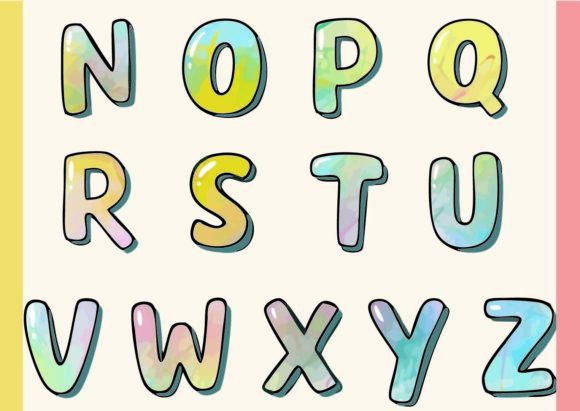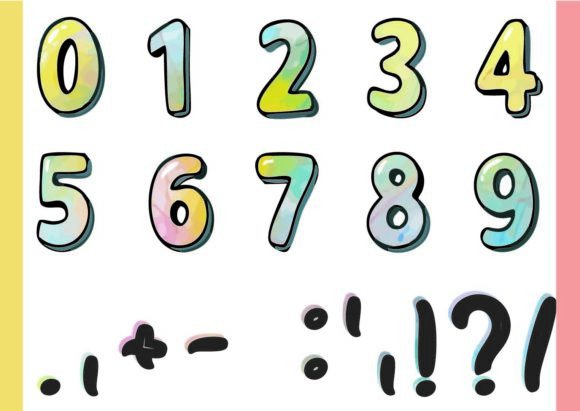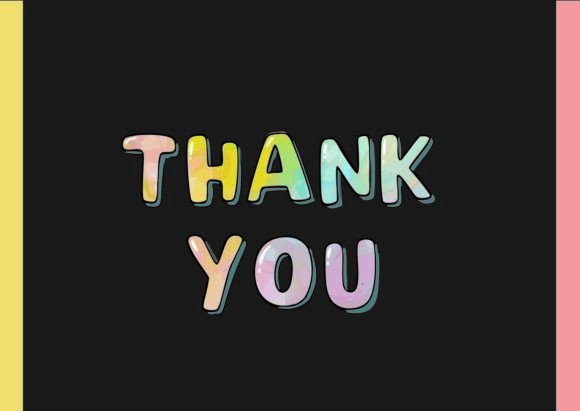
Discover the Vibrant World of Andrea Font: A Colorful Heaven for Designers and Crafters
Are you ready to add a pop of color to your designs? Look no further than Andrea Font, a revolutionary color font that is taking the design world by storm. This stunning font is not just a collection of letters and symbols, but a masterpiece of colorful art that will elevate your designs to new heights.
What is Andrea Font?
Andrea Font is a chromatic font, also known as a color font, that features a unique set of colors for every single glyph. This means that each letter, number, and symbol in the font has its own distinct color palette, creating a mesmerizing visual effect that is sure to capture attention. Whether you’re a designer, crafter, or simply someone who loves typography, Andrea Font is a must-have addition to your collection.
A Closer Look at the Glyphs
One of the most striking features of Andrea Font is the intricate design that goes into each glyph. Upon closer inspection, you’ll notice complex sets of paths and connections that make up each character. This level of detail is what sets Andrea Font apart from other fonts and makes it truly special. Each glyph could be considered a typographic painting, with delicate lines and curves that come together to create a stunning work of art.
Technical Details: Opentype-SVG and Compatibility
With Andrea Font, the creative possibilities are endless. Imagine using this vibrant font to create stunning social media graphics, eye-catching posters, or beautiful handmade cards. The colorful glyphs can add a playful touch to your designs, making them perfect for projects that require a bit of whimsy and fun. For crafters, Andrea Font can be used to create custom vinyl decals, iron-on designs, and more.
Tips for Using Andrea Font in Your Designs
- Experiment with color combinations: One of the best things about Andrea Font is the variety of colors available. Don’t be afraid to experiment with different combinations to find the perfect palette for your design.
- Mix and match glyphs: Try pairing different glyphs together to create unique and interesting visual effects.
- Use it for headlines and titles: The bold, colorful glyphs of Andrea Font make it perfect for headlines and titles that need to stand out.
- Add it to your craft projects: From handmade cards to custom vinyl decals, Andrea Font can add a pop of color and personality to your craft projects.
Andrea Font is a game-changer for designers and crafters who want to add a bit of color and whimsy to their work. With its unique set of colorful glyphs, technical compatibility, and endless creative possibilities, this font is sure to inspire and delight. Whether you’re a seasoned pro or just starting out, Andrea Font is a must-have addition to your design toolkit.